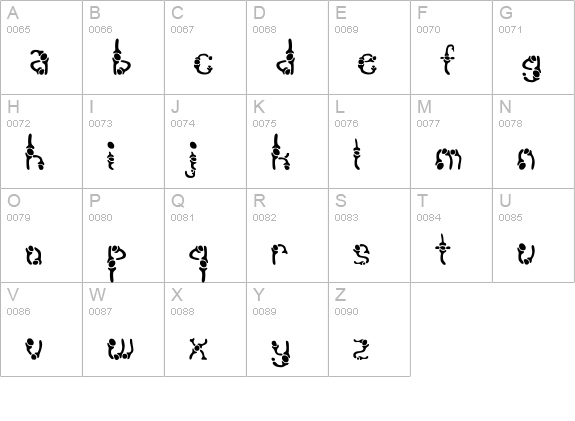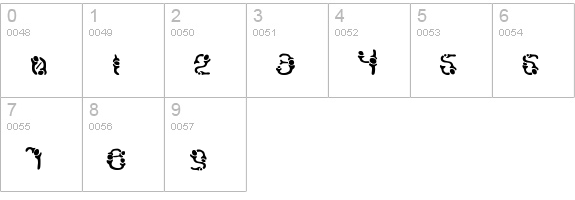
reverence Font Details
Reverence Font is a stunningly elegant typeface that exudes a sense of sophistication and grace. With its beautifully crafted letterforms and delicate curves, this font is perfect for adding a touch of class to any design project. Whether you are designing a wedding invitation, creating a logo for a high-end brand, or simply looking to elevate the visual appeal of your website, Reverence Font is sure to impress. What sets Reverence Font apart is not just its exquisite design, but also the fact that it is free. That's right, this exceptional font is freely available to download at FontsMarket.com. We believe that great design should be accessible to all, and we are thrilled to offer Reverence Font as a gift to the design community. With Reverence Font, you can effortlessly bring a touch of sophistication to your projects without breaking the bank. Its versatility allows it to be used in a variety of contexts, from formal invitations to elegant branding materials. The timeless beauty of this font is sure to leave a lasting impression on anyone who encounters it. So why wait? Experience the beauty of Reverence Font for yourself by downloading it for free at FontsMarket.com. Whether you are a professional designer or a DIY enthusiast, this font is a must-have in your collection. Elevate your designs and captivate your audience with the timeless elegance of Reverence Font.